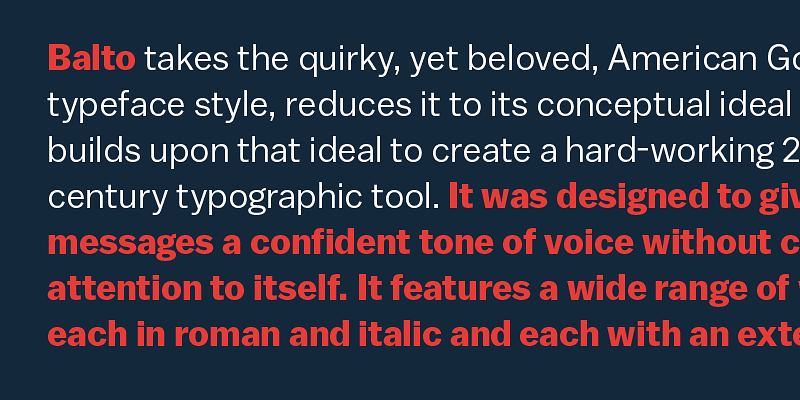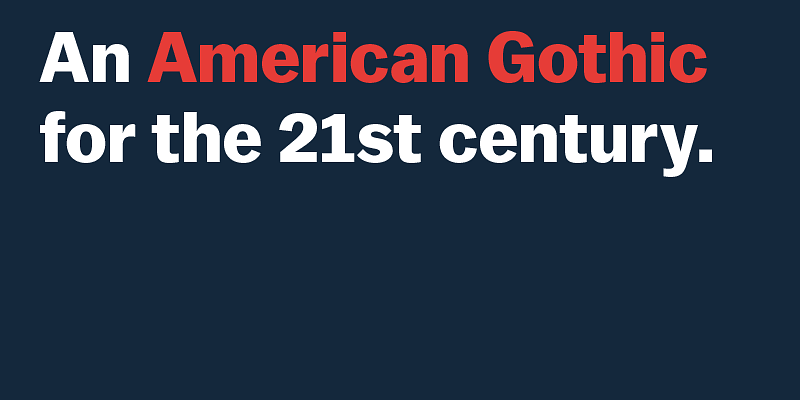
Balto is an American Gothic built for the 21st Century. It has a rhythmic typographic texture that pronounces any message with a confident and approachable tone of voice.